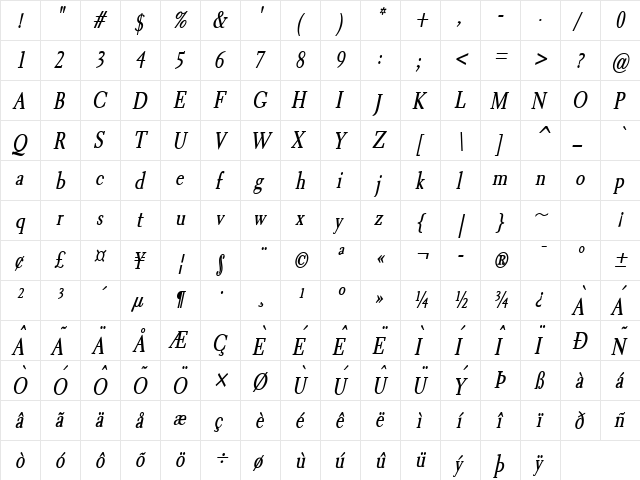
Transit 2 Condensed BoldItalic Font Preview
Design Context for Transit 2 Condensed Typeface
Transit 2 Condensed is a composed and adaptable typeface that performs quietly and consistently across a wide range of design contexts. Its italic angle brings a sense of urgency and motion to the letterforms. Its bold stroke weight gives it real presence on the page. The condensed width makes it efficient for tight spaces without sacrificing legibility.
Pro Tip: Use Transit 2 Condensed for emphasis, pull quotes, and subheadings where its slanted energy can add rhythm to the layout.